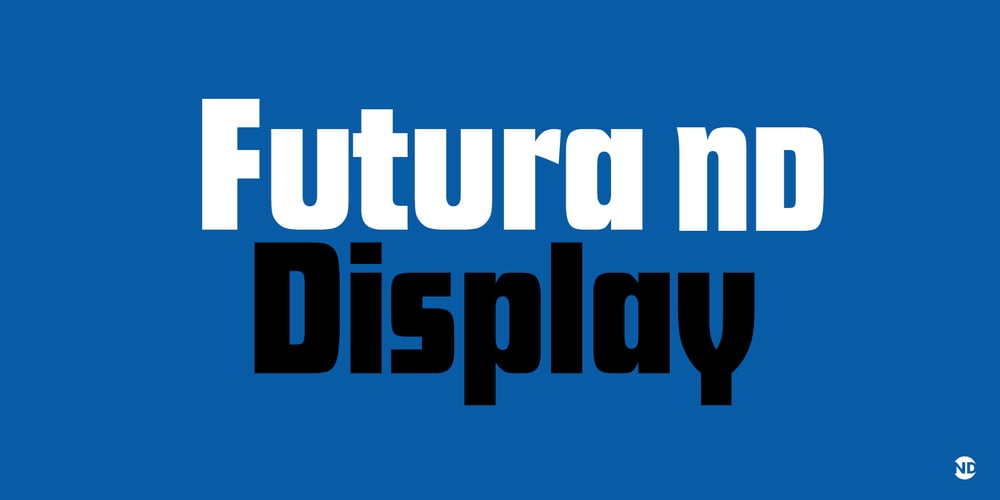
Futura ND Display
Futura ND Display font
Futura ND Display Font Family was designed by Paul Renner, Marie-Thérèse Koreman and published by Neufville Digital. Futura ND Display contains 1 styles and family package options. Futura Display was designed by Paul Renner in 1932. Its original German name was Futura Schlagzeile, which means “headline”, alluding to its suitability for display use. Its forcefulness and robustness have made it a widely used typeface in film posters, advertising, logos, and music covers.Futura is a Trademark of BauerTypes SL